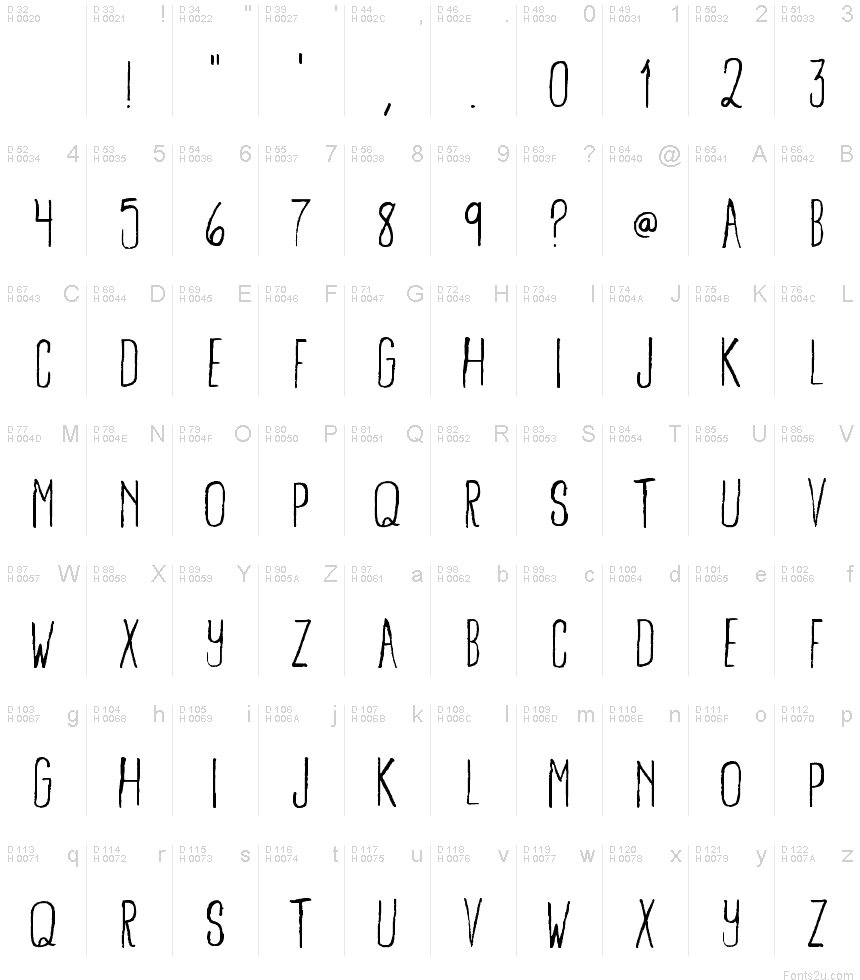
Bamboo Brisk by Skyhaven is a free handwritten caps font with a tall, wiry silhouette. Its narrow letters have uneven strokes, slight bends, and blunt ends that retain the pressure changes of a quick marker drawing. The forms feel restless but remain plainly recognizable.
Street food and outdoor festivals suit its casual, handmade manner. It can bring an unfussy personal note to cafe menus, festival posters, craft packaging, and music merchandise with hand-drawn mascots. On labels, the irregular stroke widths can become part of a small brand's approachable product identity.
The font was made using bamboo pens.